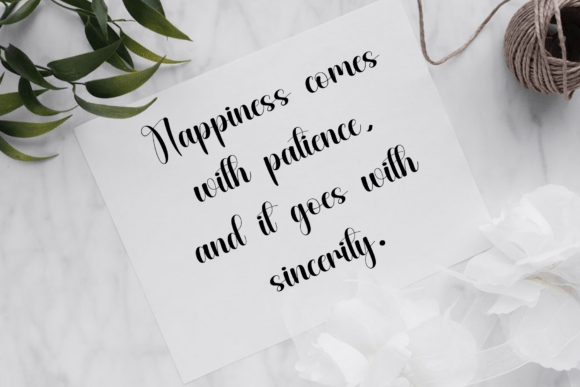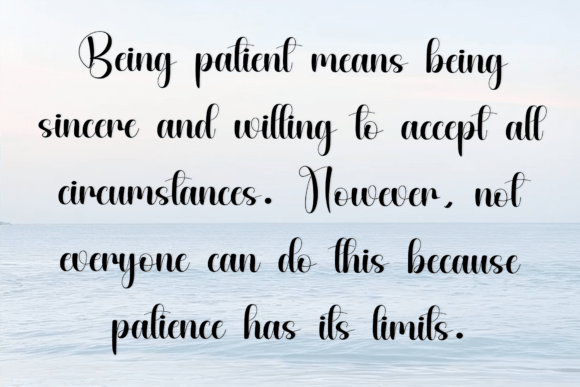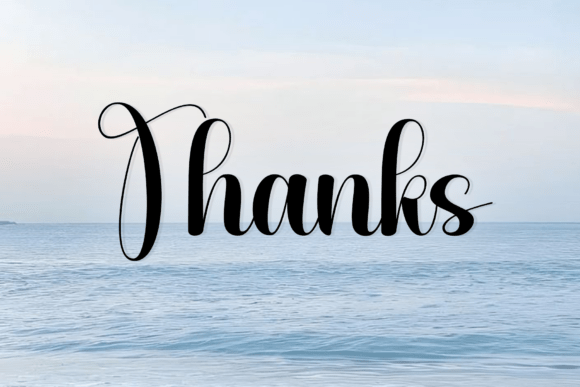
Introduction to Lightblue Font
Do you remember that moment when you’re brainstorming a creative project, and you finally find the perfect font to bring your vision to life? It’s like a spark of inspiration hits you, and everything falls into place. For designers, that moment is invaluable, and it’s what makes the discovery of a high-quality font like Lightblue Font so thrilling.
Lightblue Font is more than just a design resource – it’s an elegant and fluid handwritten script font that exudes sophistication and modernity. With its refined lines and subtle nuances, it’s a perfect choice for luxury wedding stationery, intimate event branding, and high-end editorial signatures. Whether you’re working on a creative project or simply need a beautiful font for a free download, Lightblue Font is sure to impress.
One of the standout features of Lightblue Font is its versatility, allowing designers to create stunning visuals with a transparent background, perfect for lifestyle photography overlays. Its unique character makes it an essential tool in any designer’s arsenal, and we can’t wait to dive deeper into what makes this font so special.
Key Features of Lightblue Font
- Features a transparent background for easy integration into designs
- Unique characteristics include a modern and minimalist aesthetic, making it perfect for digital and print designs
- Comes with a comprehensive character set, including uppercase and lowercase letters, numbers, and punctuation marks
Honest Review: Lightblue Font
As a designer, I’m always on the lookout for high-quality design resources to elevate my creative projects. Recently, I had the chance to work with the Lightblue Font, and I’m excited to share my honest review.
- ✨ The Lightblue Font is incredibly versatile, suitable for a wide range of design applications, from digital to print.
- ✨ The transparent background allows for seamless integration with other design elements.
- ⚠️ The font may not be suitable for small-scale designs, as the characters can appear blurry when scaled down.
- ⚠️ The font family is relatively small, which may limit its use in certain creative projects.
Overall, I’m impressed with the Lightblue Font. Its high quality and versatility make it an excellent design resource, perfect for any creative project. While it may have a few limitations, I believe it’s a great addition to any designer’s toolkit.
The Lightblue Font is perfect for a variety of creative projects, including branding, marketing materials, and digital graphics. Its modern and sleek design makes it a great choice for designers looking for a high-quality design resource.
To get the most out of the Lightblue Font, be sure to pair it with a clean and simple design. The font’s transparent background also makes it easy to customize and combine with other design elements.
No, the Lightblue Font is a solid font with a colored design, not a transparent background. However, you can easily use it with a transparent background in design applications that support layer blending modes, such as Adobe Illustrator or Photoshop.